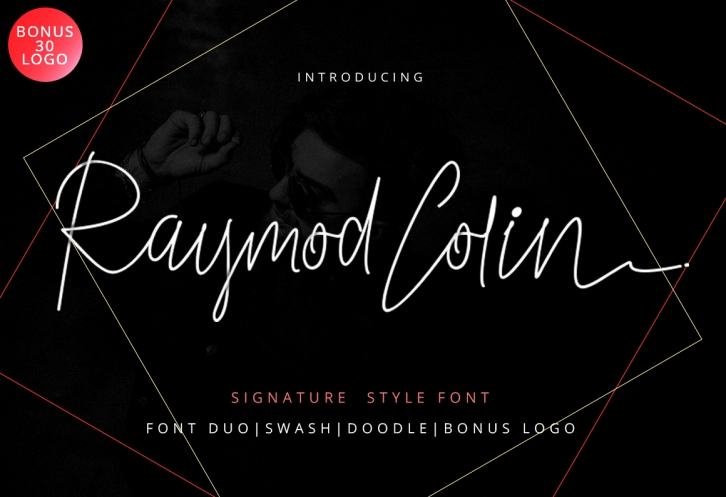
Raymod Colin Duo is a trendy and unique font with an authentic style. It was designed by ijemijem and it's a great choice for creative people who need such a font. It was released on September 27, 2017 and the file size is 3.82 MB. Raymod Colin Duo will add an organic vibe to any design idea!